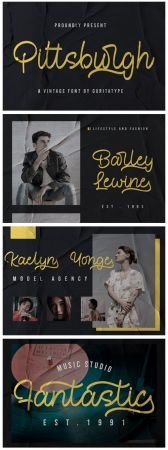
DesignOptimal - Pitttsburgh Font
DesignOptimal.com - Pitttsburgh Font
Pitttsburgh is a fun and quirky handwritten font. Use it to make your ideas even more realistic and create spectacular designs!